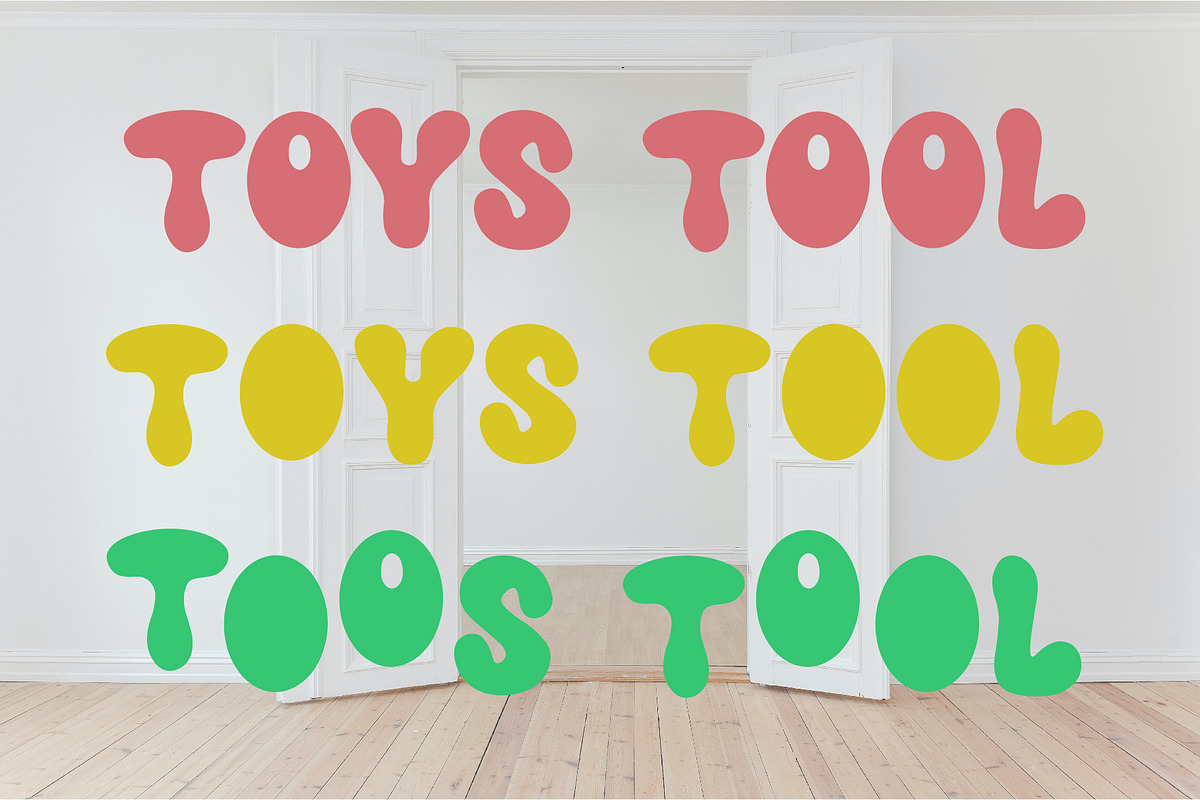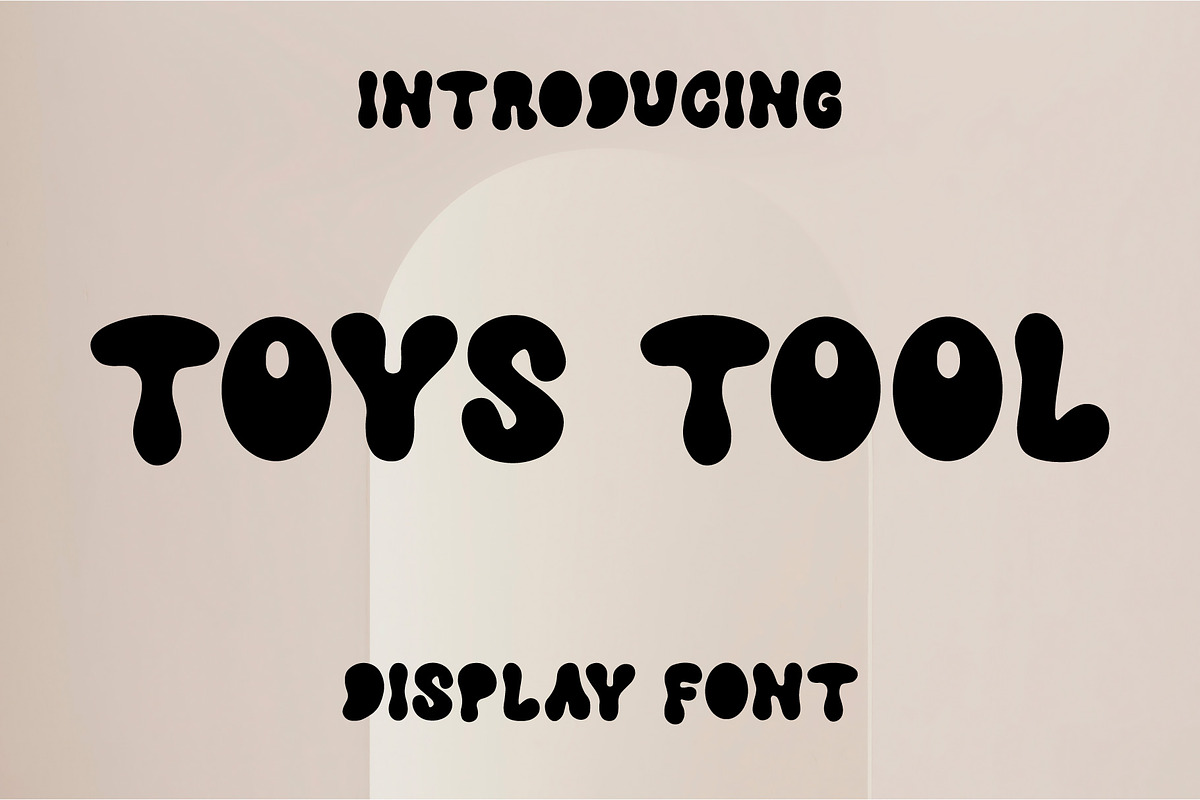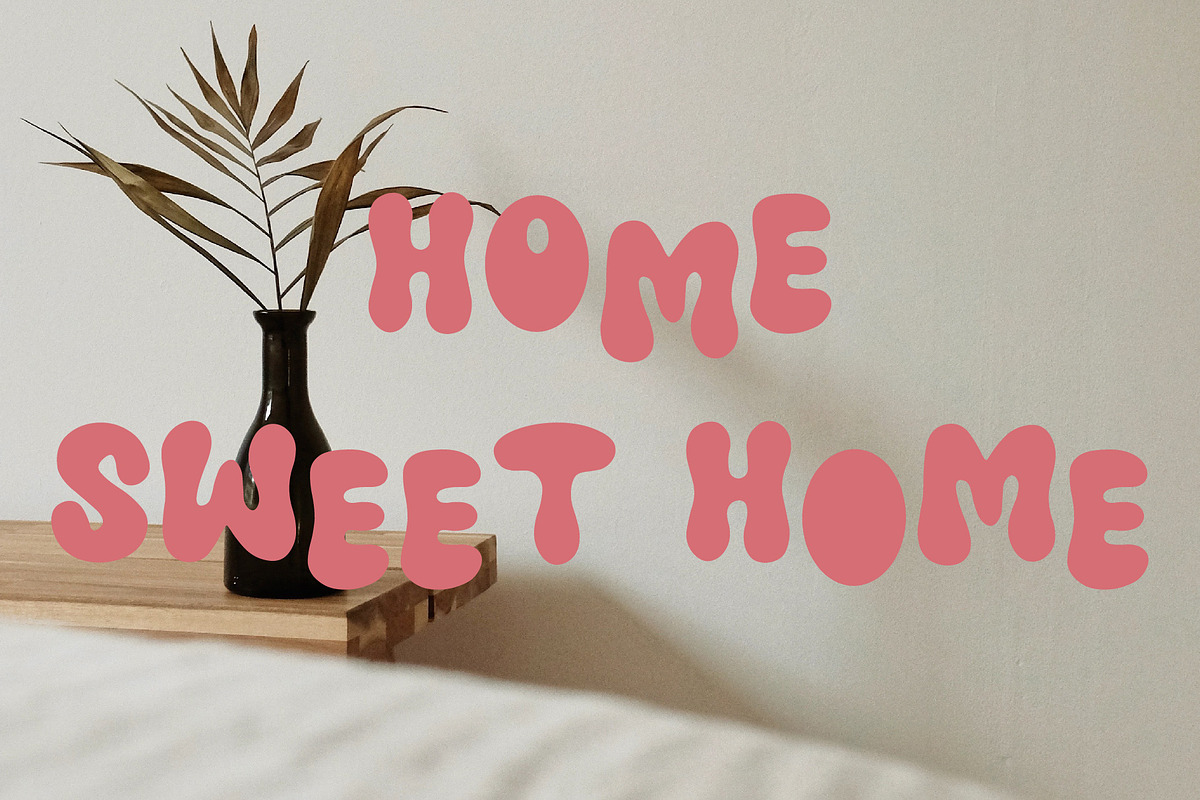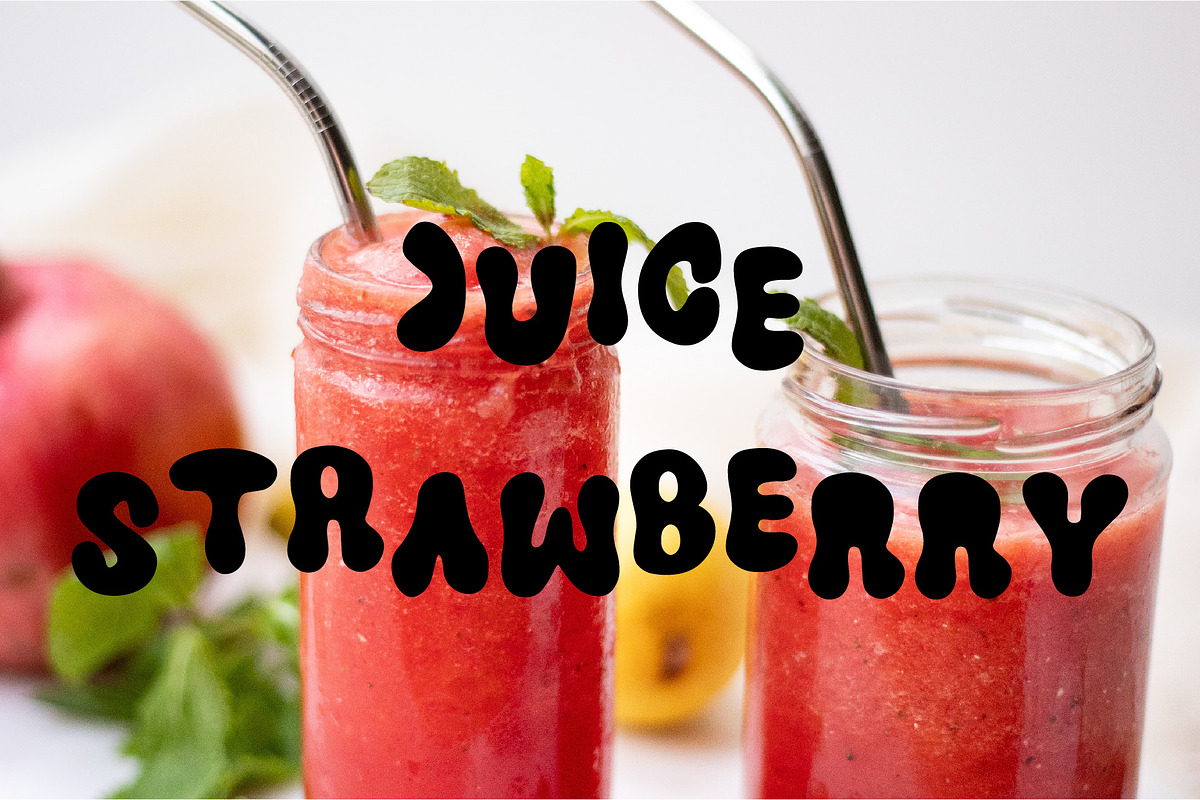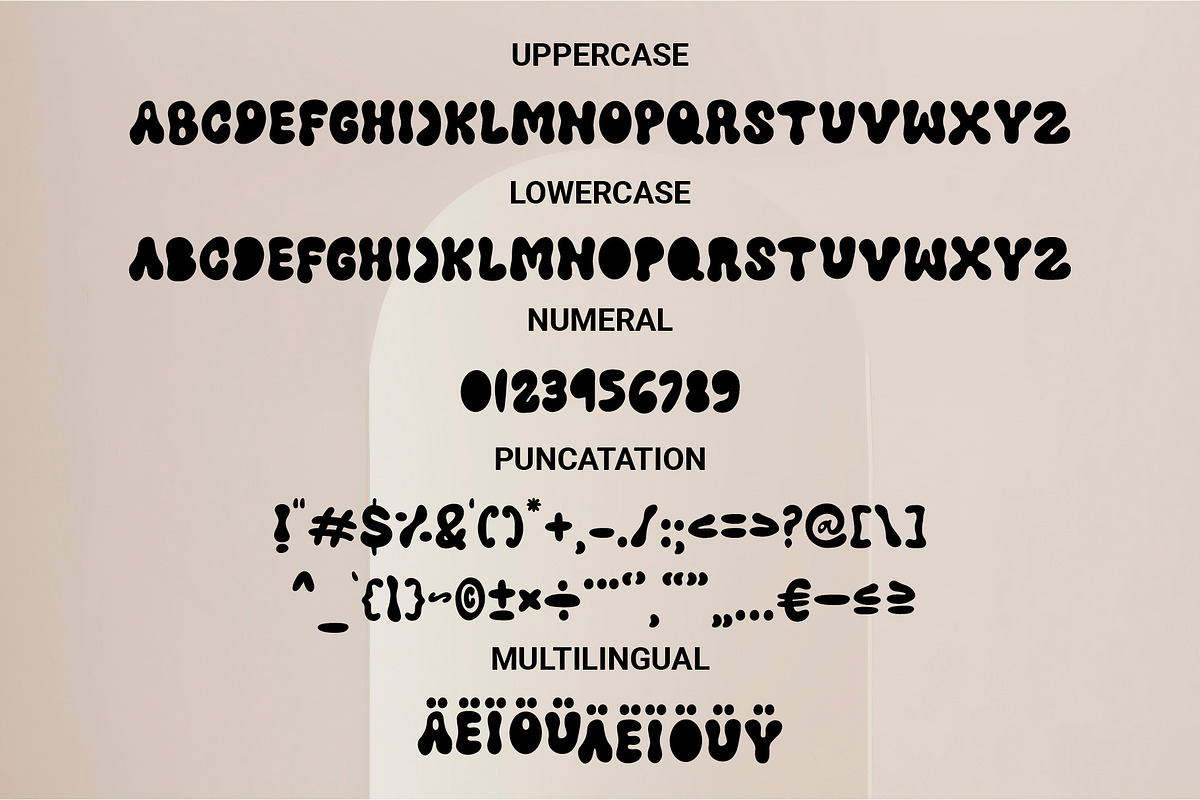
Toys Tool
Toys Tool is a type of display font created with a character like a balloon filled with air in it, giving it a cute and cute impression. This font has many variants and combines uppercase and lowercase letters so that designers can be creative according to the desired taste, such as waves or flat in a word.